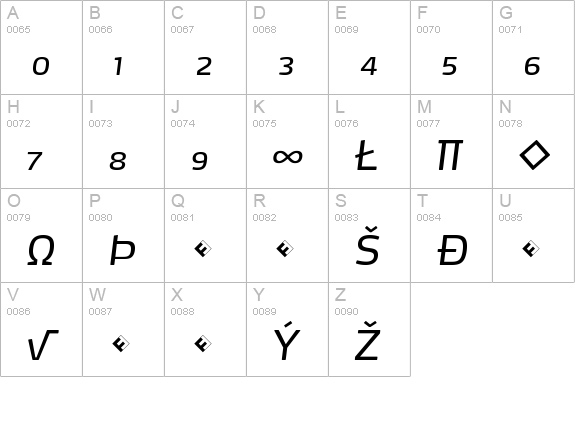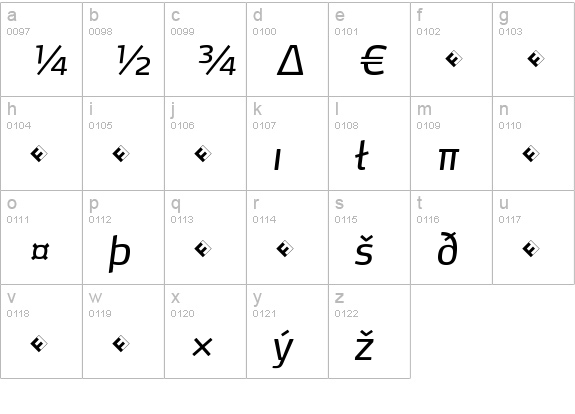
Introducing Max-RegularItalicExpert font, a sophisticated and stylish typeface designed for those seeking a touch of elegance in their typography. This font boasts a sleek and modern look with its expertly crafted italicized design, making it perfect for adding a touch of flair to any project. The Max-RegularItalicExpert font exudes a sense of professionalism and class, making it suitable for a wide range of applications, from branding to editorial design. What's even better? This exquisite font is available for free download at FontsMarket.com. Don't miss out on the opportunity to elevate your designs with the sleek and versatile Max-RegularItalicExpert font. Download it today and bring a touch of sophistication to your projects!